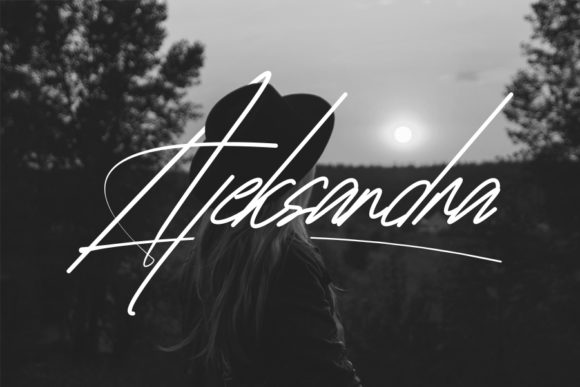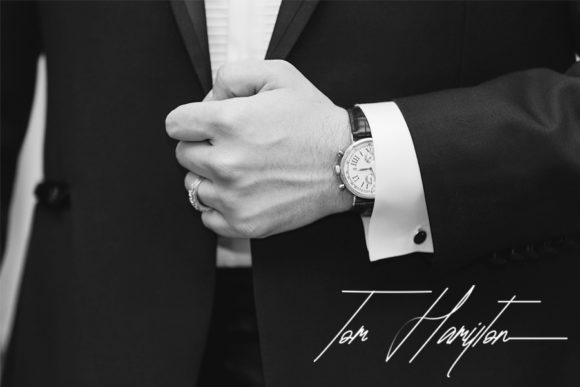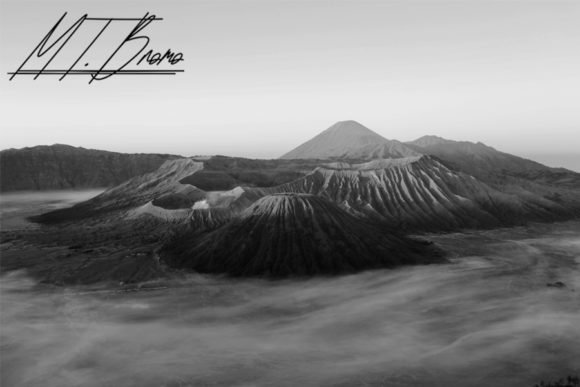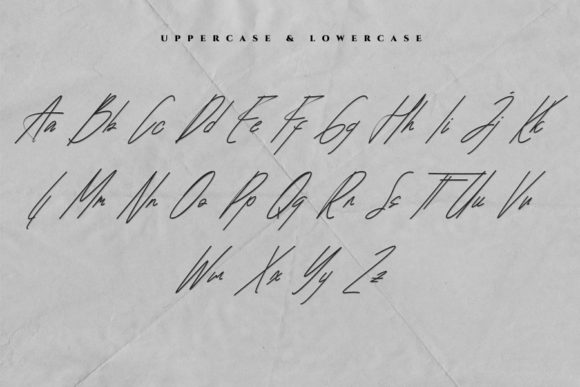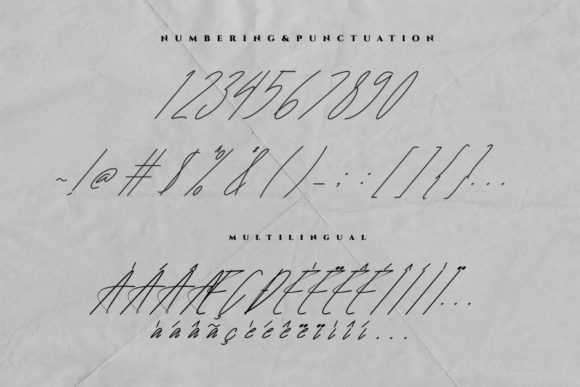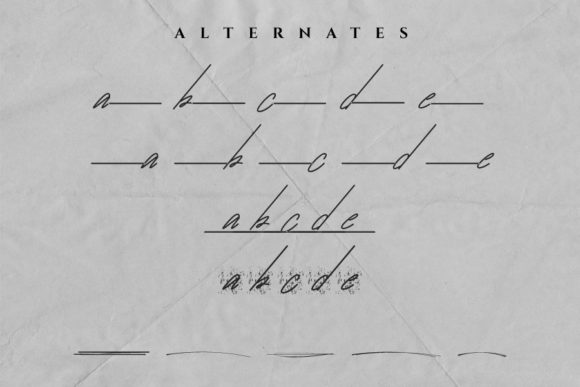
Introduction to Famanthalio Font
Have you ever been working on a creative project and suddenly, the perfect font pops up, elevating your design from ordinary to extraordinary? That’s exactly what happened to many designers when they discovered the Famanthalio Font. Its elegant and flowing handwritten style is the perfect addition to any project, and we’re excited to share its beauty with you.
Whether you’re a seasoned designer or just starting out, the Famanthalio Font is a valuable resource to have in your toolkit. With its high-quality design and versatility, you can use it to create stunning designs for any project, from social media graphics to wedding invitations. Plus, with a transparent background option, you can easily customize it to fit your design needs.
Key Features of Famanthalio Font
- High-quality design resource ideal for creative projects requiring a unique touch
- Features a transparent background, allowing for seamless integration into any design
- Optimized for use at high resolutions, ensuring crisp and clear typography at 300 DPI and above
- Comes in a single weight, making it easy to use across various design applications
- Perfect for designers seeking a distinctive and eye-catching font for their next creative project
Honest Review: Famanthalio Font
I recently stumbled upon the Famanthalio Font, a unique and captivating design resource that has caught my attention. This free download is perfect for any creative project that requires a touch of elegance and sophistication.
Here are some aspects of the Famanthalio Font that I think work well:
- ✨ High-quality design: The font is well-crafted and visually appealing, making it an excellent choice for any design project.
- ✨ Transparent background: The font’s transparent background makes it easy to layer and combine with other design elements.
- ✨ Versatile: The Famanthalio Font can be used for a wide range of creative projects, from branding and advertising to digital art and graphics.
- ⚠️ Limited character set: The font only includes a limited character set, which may not be suitable for projects that require extensive text.
- ⚠️ Not ideal for large-scale text: The font may not be the best choice for large-scale text, as it may become pixelated and lose its quality.
Overall, I’m impressed with the Famanthalio Font, and I think it’s a great addition to any designer’s toolkit. While it has its limitations, it’s a high-quality design resource that’s perfect for creative projects that require a touch of sophistication and elegance.
How to Use Famanthalio Font
The Famanthalio Font is a versatile design resource that offers a high-quality, free download for creative projects. With its transparent background, this font is perfect for adding a touch of elegance to your designs.
Tips for Getting the Most Out of Famanthalio Font
Use the Famanthalio Font in combination with other design elements to create a cohesive and visually appealing design.
Experiment with different font sizes, colors, and styles to achieve the desired effect.
Common Use Cases for Famanthalio Font
The Famanthalio Font is perfect for:
Creating elegant and sophisticated designs.
Adding a touch of luxury to your branding materials.
Designing creative projects that require a high-quality